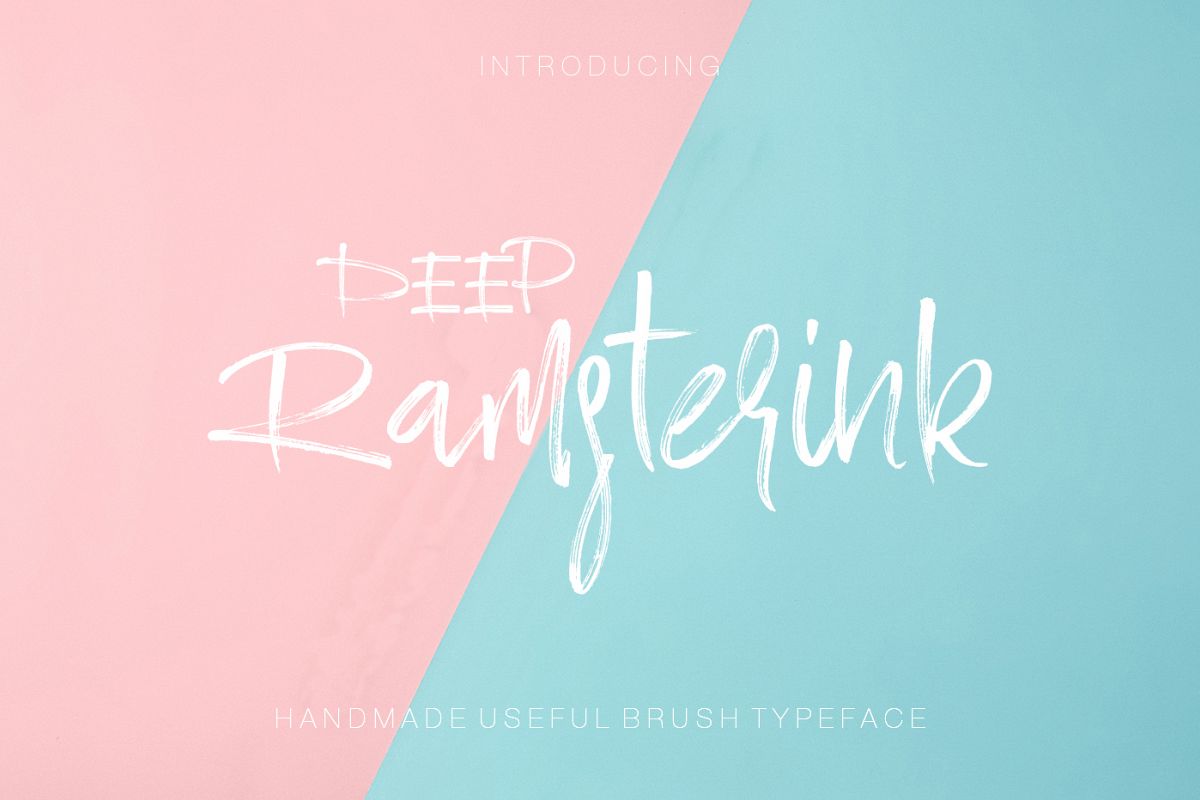
Ramsterink Brush Font
DeepRamsterink
Ramsterink  Brush Font has almost an unique design that posseses elegancy and charm. Fluidity of ink and hardness of brush created the unique characteristics of the font. You can see the harmony of the curls among the letters. With Ramsterink , you can make your projects, brands, presentation of your collections, magazines, logos, packagings and websites be eye-catching with pleasure.  WHAT'S INCLUDED?
• Numbers and Symbols
• Alternate Characters